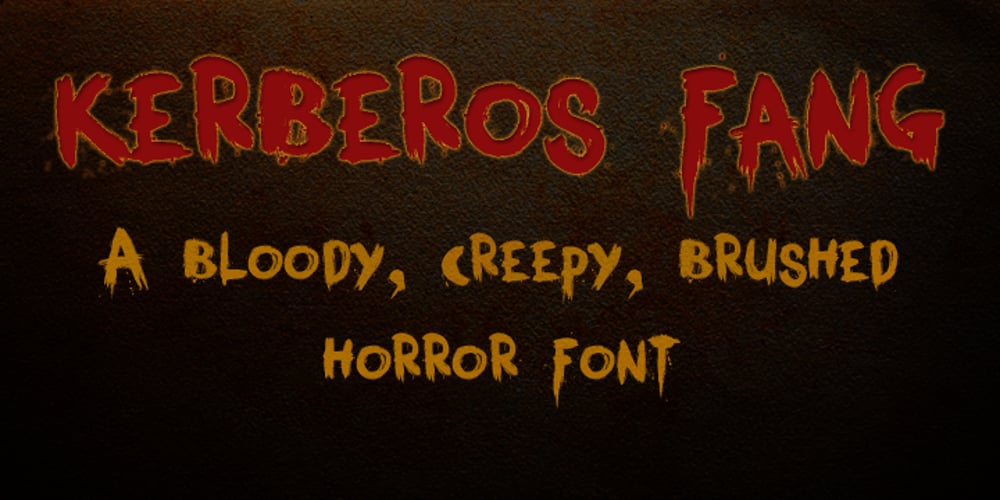
Kerberos Fang Font Family was designed by David Kerkhoff and published by Hanoded. Kerberos Fang contains 3 styles and family package options. A creepy, blood-splattered horror font, made entirely with brushes and ink. Ideal for websites and halloween.